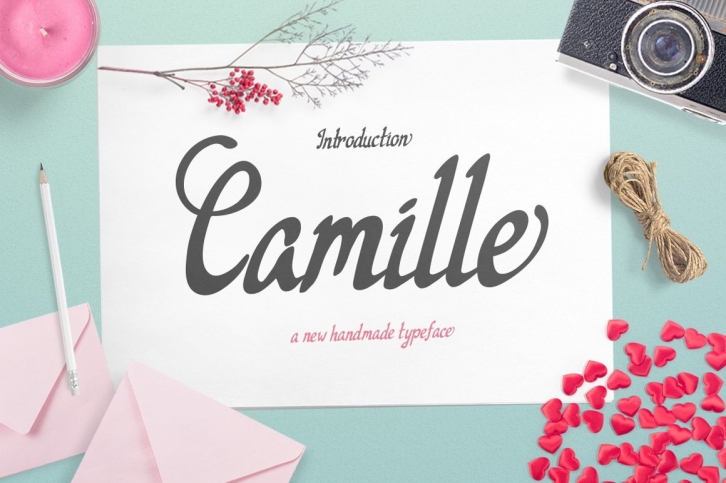
Camille is a 'semi-script' font with tight kerning and bold strokes giving casual yet formal vibe. Camille portrays charm, elegance and femininity. It is perfect for branding, invitations, flyers, posters, wedding invitation, and more.
Features: Uppercase & Lowercase, Numerals & Punctuation, Ligatures, Stylistic Alternates, Swash.